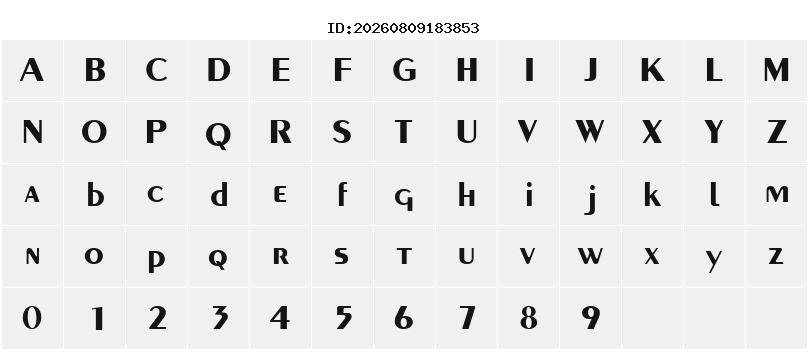
Paquete SSi Preview
• Font Name: Paquete SSi
• Full Font Name: Paquete SSi Bold
About Paquete SSi.ttf
Paquete SSi.ttf is a modern, elegant sans-serif font designed for ultimate readability and visual harmony. Perfect for branding, headlines, web design, and print materials.